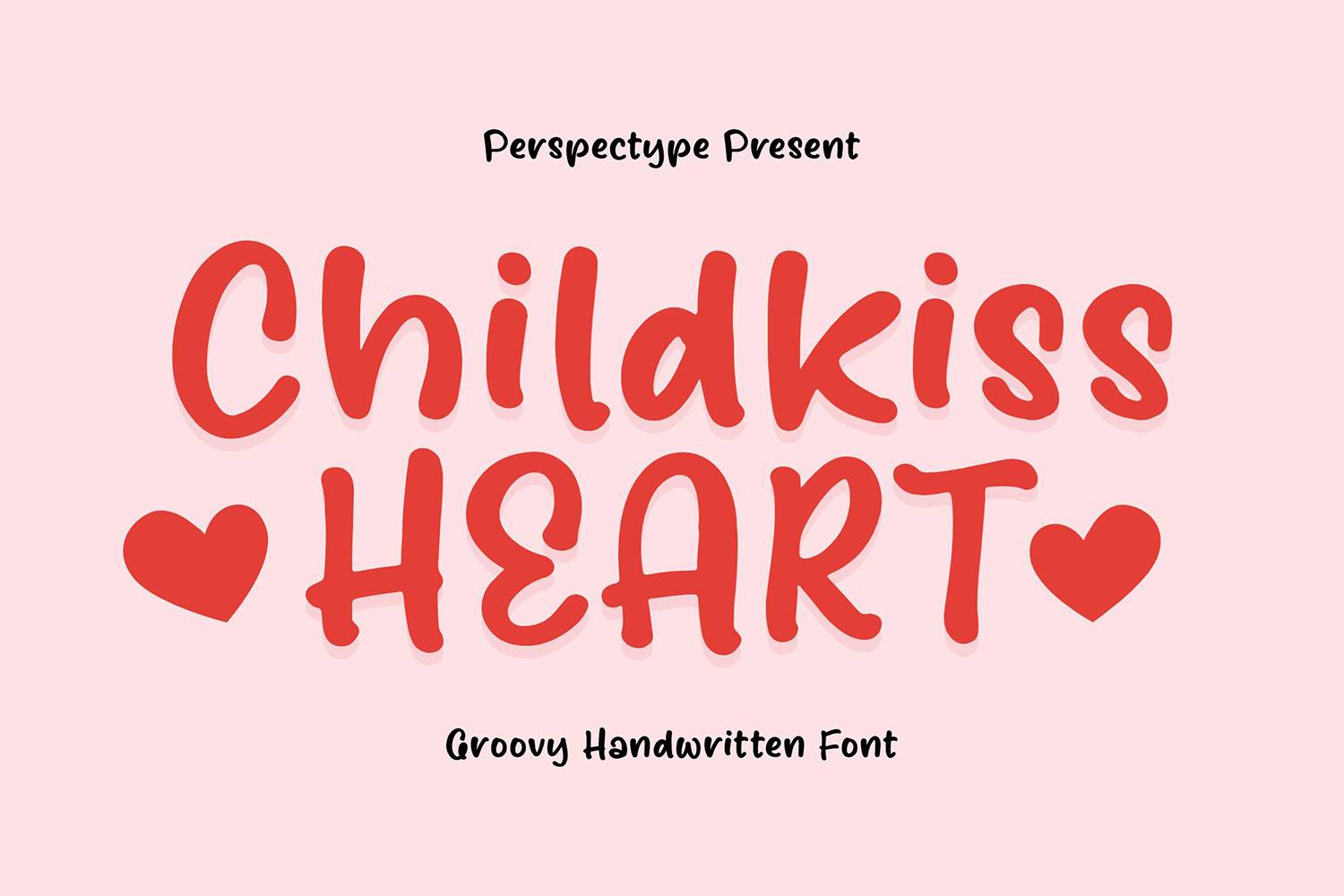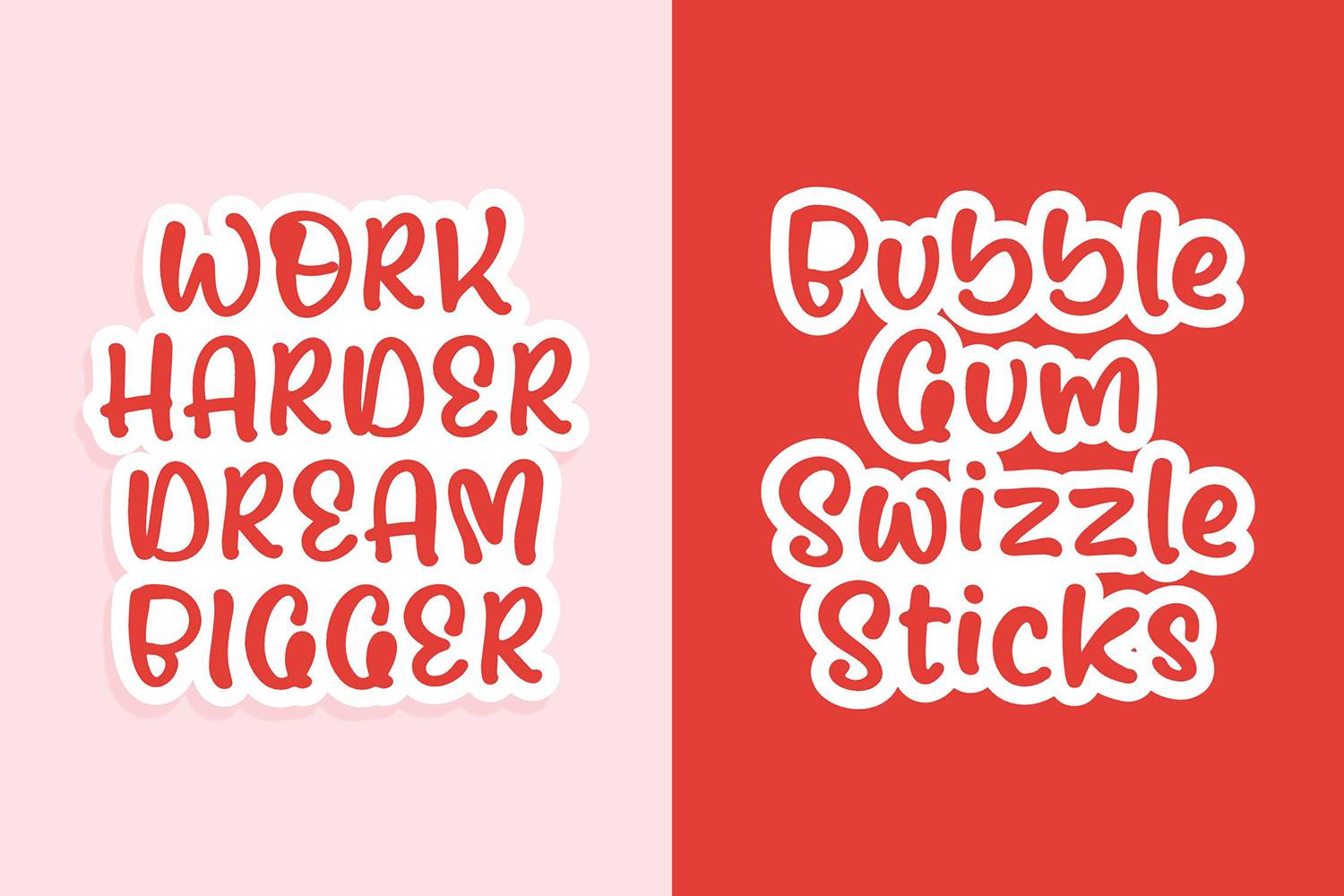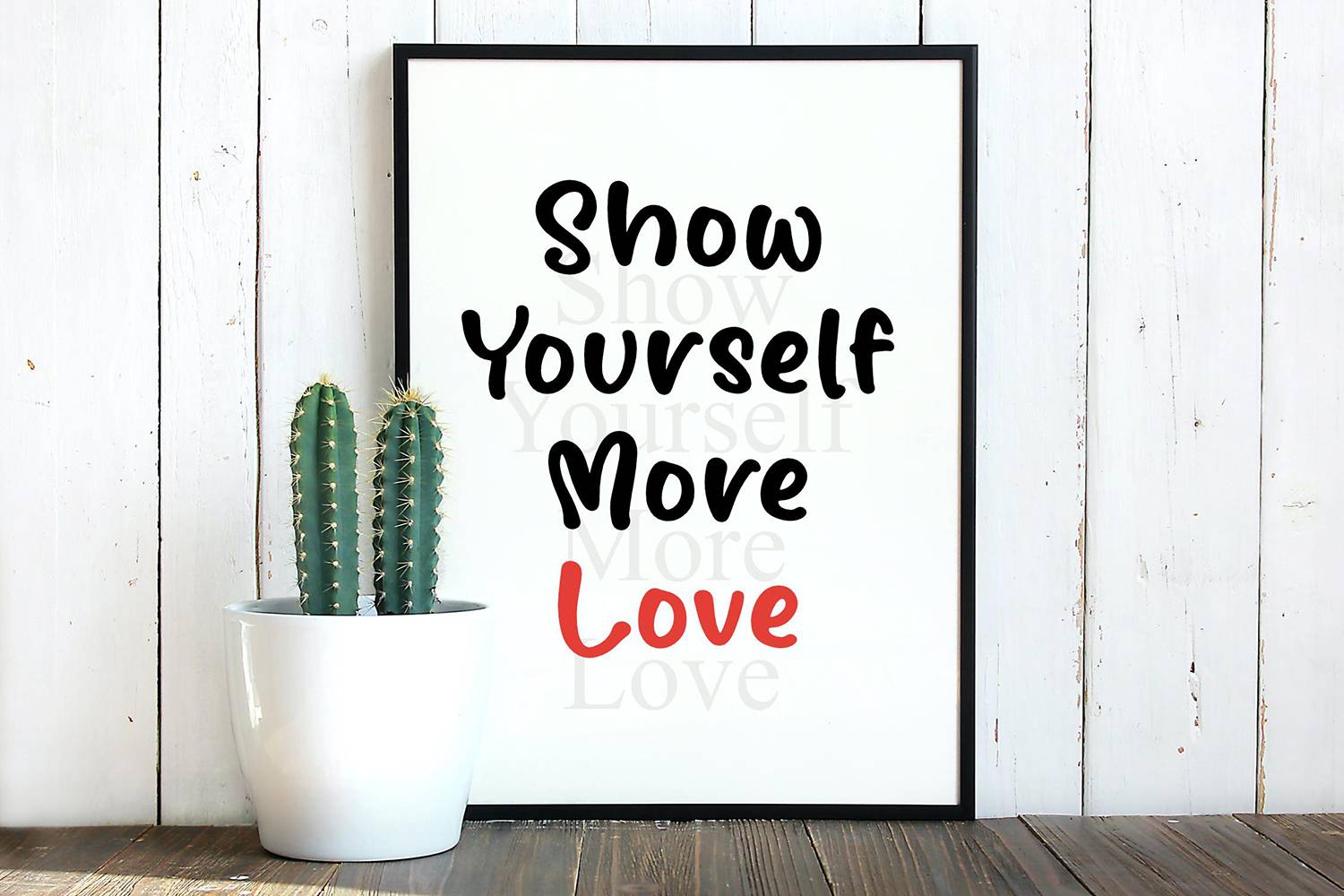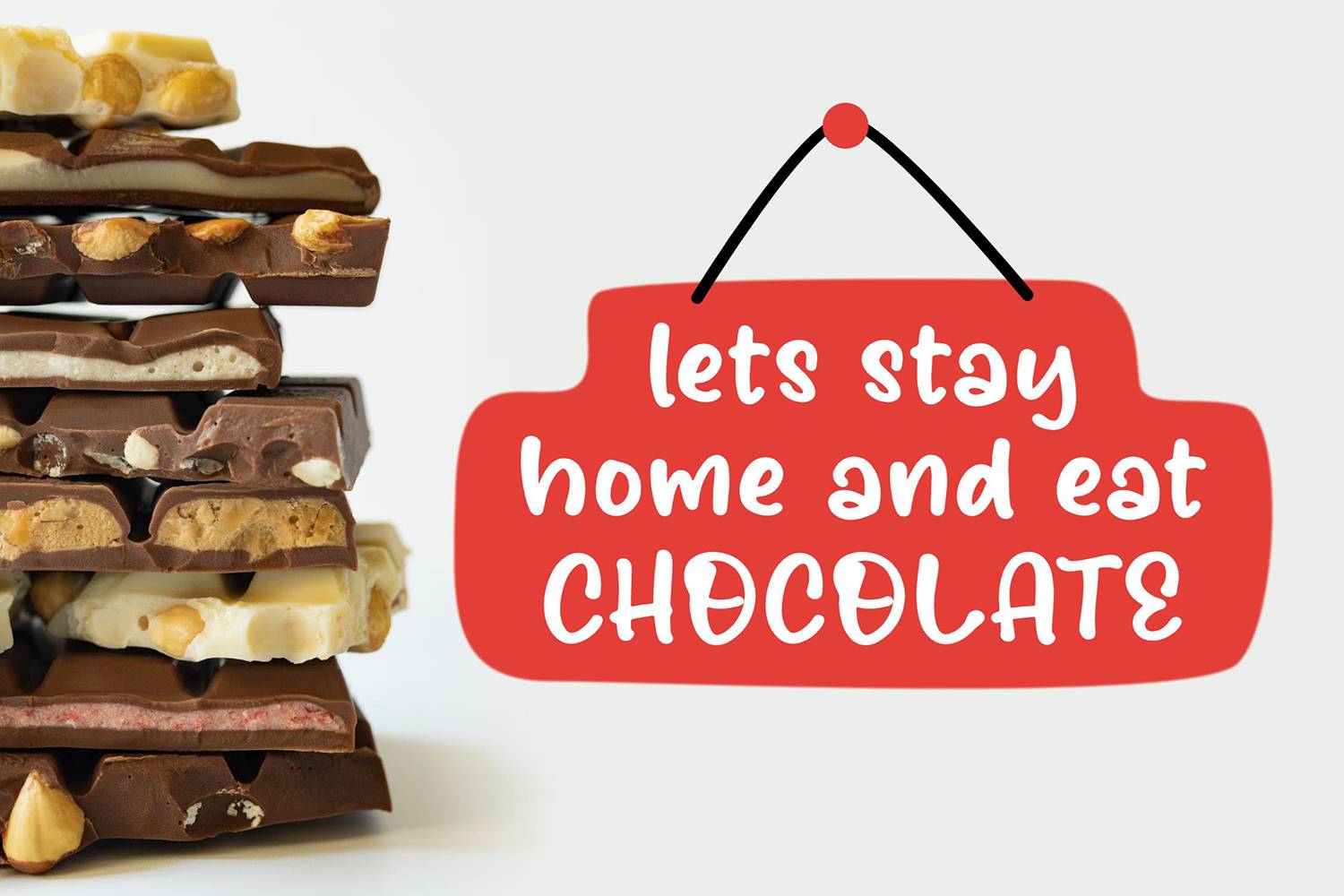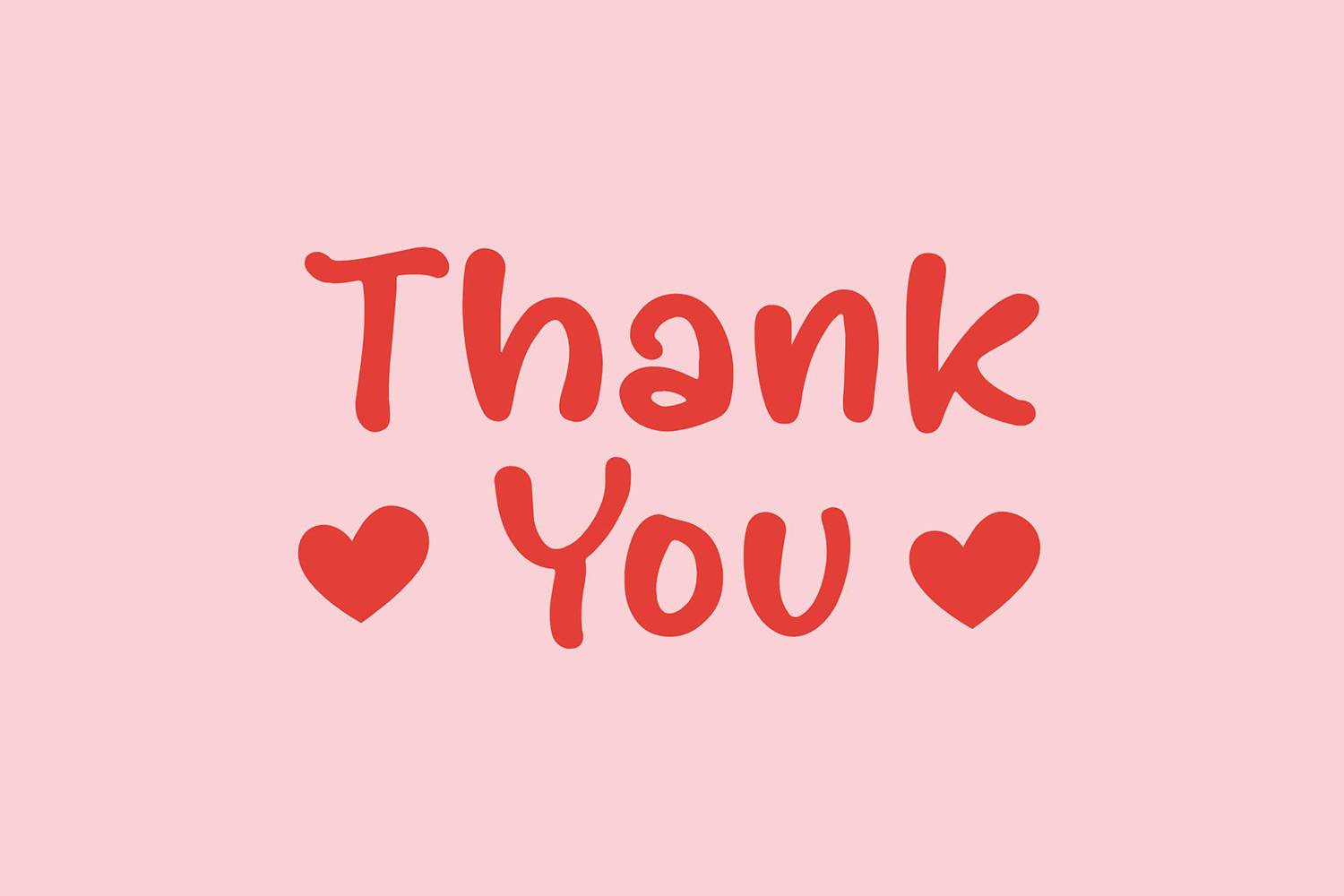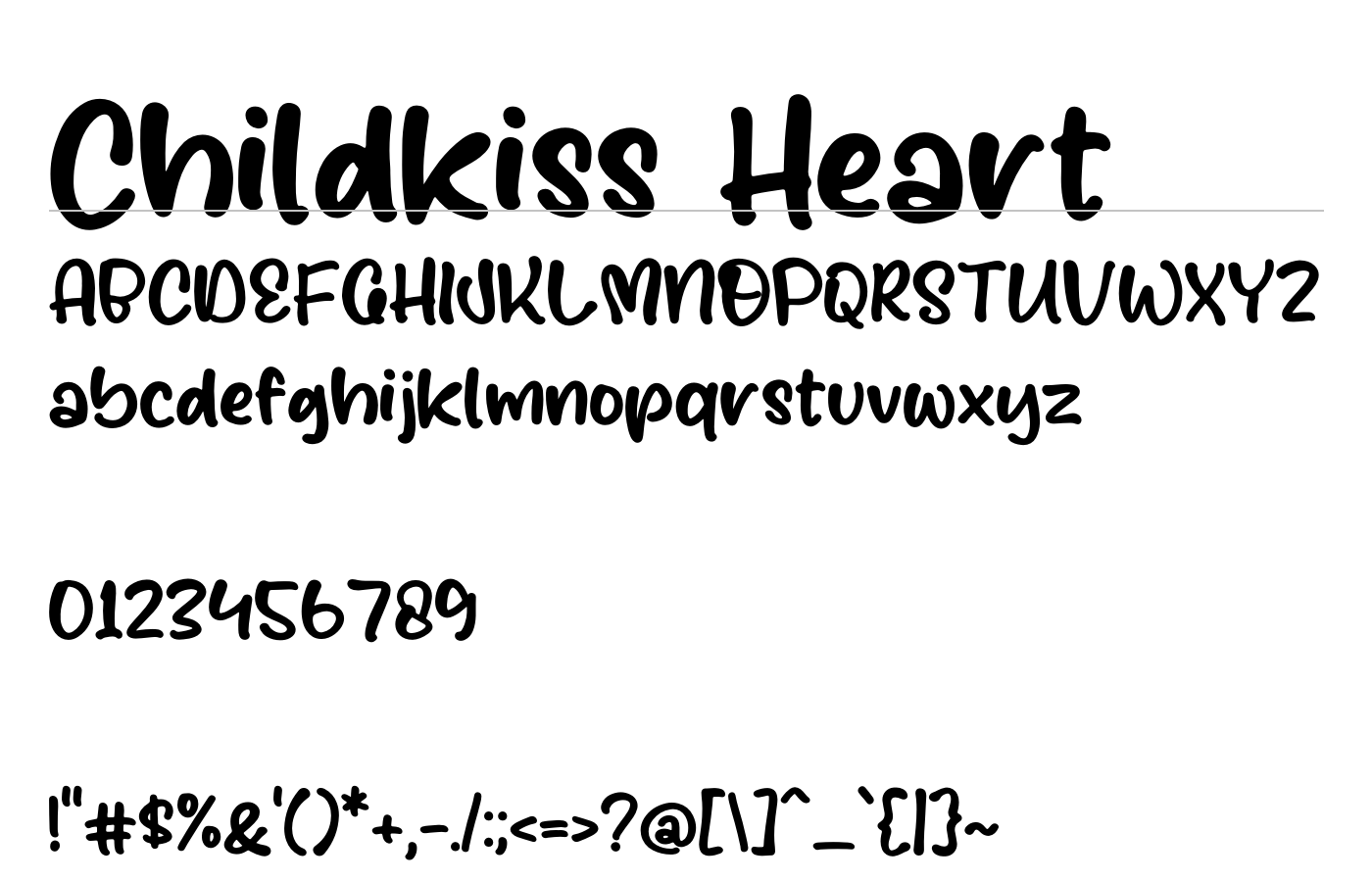
Childkiss Heart is a playful and friendly handwritten sans serif font with bold, rounded strokes and moderate x-height, giving it a warm, approachable feel. Its casual and slightly irregular letterforms make it ideal for designs aimed at children, informal invitations, or creative projects that want to convey fun and joy. This font works best in logos, posters, and packaging where a personal, cheerful touch is desired.
Childkiss Heart Font
About Childkiss Heart Font